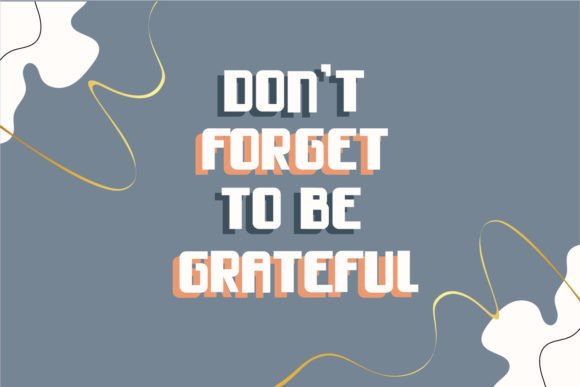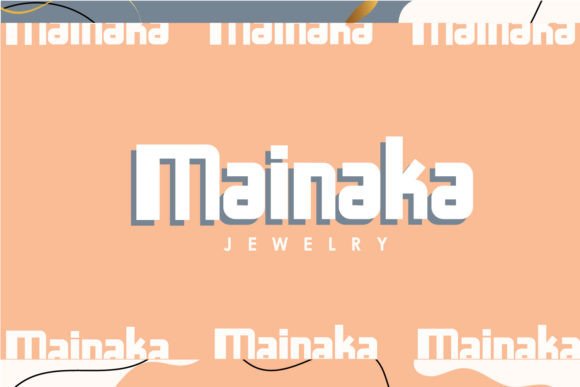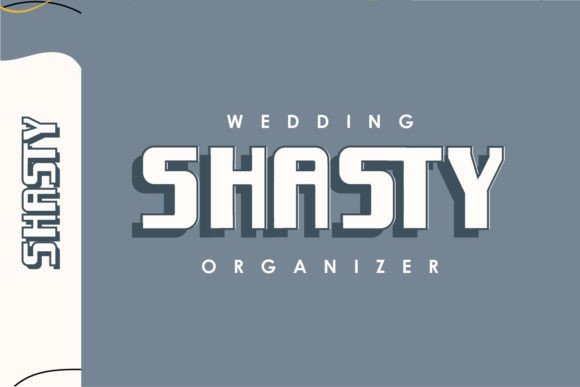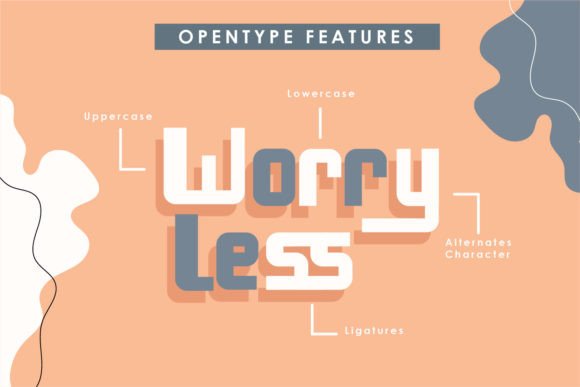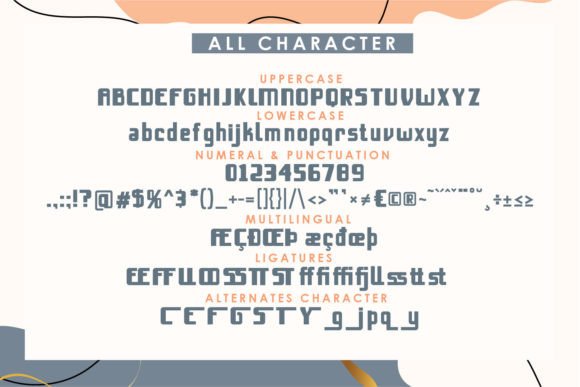
Introduction to Serpent Font
Serpent is a cool and modern display font.
Add this beautiful display font to each of your creative ideas and notice how it makes them stand out .
Key Features of Serpent Font
Why Choose Serpent Font?
Serpent Font offers exceptional quality and versatility, making it a valuable addition to your design toolkit. Whether you’re creating for personal projects or commercial use, Serpent Font delivers professional results.